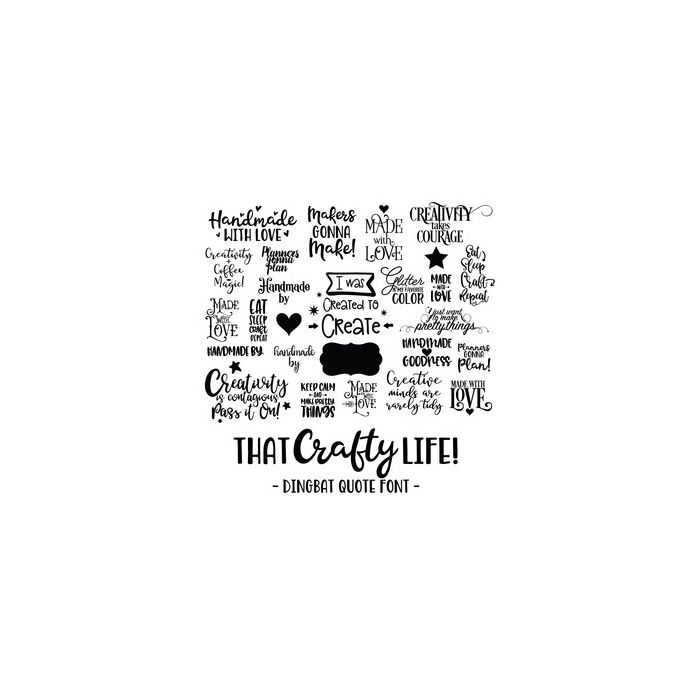
That Crafty Life - Craft Quote Dingbat Font. Includes 26 crafty quotes, perfect for planners, wall art, word art, vinyl, scrapbooking, gifts and more!. All are assigned to an upper case letter starting with 'A' or can be accessed via glyphs. For more design ideas, coordinating designs & products and inspiration, please visit my blog http://www.sarahhurleyblog.com